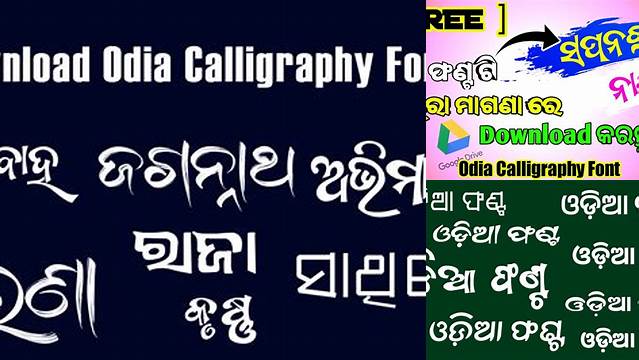
Free Odia Calligraphy Fonts: Download & Use On Mobile!
Hey everyone! If you're looking to spice up your mobile projects with some beautiful Odia script, you've landed in the right spot! Today, we're diving deep into the world of free Odia calligraphy fonts that you can download and use directly on your mobile devices. We'll cover everything from where to find these gems to how to install and use them, plus some cool tips and tricks to make your designs stand out. So, grab your phone, and let's get started!
Where to Find Awesome Free Odia Calligraphy Fonts for Mobile
Okay, so you're pumped to find some fantastic Odia calligraphy fonts – excellent choice! The first step is knowing where to look. There are several online resources that offer a variety of fonts, and the best part is many of them are completely free for personal and sometimes even commercial use (always double-check the license!). Websites like Google Fonts, DaFont, and Font Squirrel are great places to start your search. While these platforms primarily host Latin fonts, you can often find Odia script fonts by using specific search terms like “Odia,” “Oriya,” or “Indian script.” Additionally, many websites dedicated to Indian languages offer font collections, often including high-quality Odia calligraphy fonts that are specifically designed for digital use. Remember to always check the terms and conditions of use to ensure you're abiding by the licensing agreements. Some fonts may require attribution, while others may have restrictions on commercial projects. When searching for fonts, look for those optimized for mobile devices. This means they should be easily readable on smaller screens and designed with mobile operating systems in mind. The availability of these fonts ensures that your text will render smoothly and beautifully on any mobile device.
When choosing a free Odia calligraphy font, consider its design and readability. The font should reflect the mood of your project. For example, a formal document might benefit from a traditional, elegant font, while a more casual design can use a playful, modern font. Ensure the font is legible at different sizes; you want users to be able to read your text clearly. Also, check the font's character set to see if it supports all the Odia characters you need. Some fonts might have limited character support, potentially leading to missing glyphs. Furthermore, consider the file formats. TTF (TrueType) and OTF (OpenType) are common font formats that are compatible with most mobile devices. Compatibility is an essential factor to make sure the fonts display without problems on various devices. Explore different font families and weights. Using various font styles can create visual interest in your designs. Experiment with bold, italic, and regular variations to see what works best. Take advantage of font previews to visualize how the text will look on your mobile device. Many websites provide a preview feature where you can type your text and see it rendered in the chosen font. This is a great way to see how the font complements your content. Don't hesitate to try out multiple fonts before deciding on the perfect one. Compare different options to find the one that best suits your project's needs. By exploring the various options available, you'll find many fantastic fonts to enhance your mobile designs.